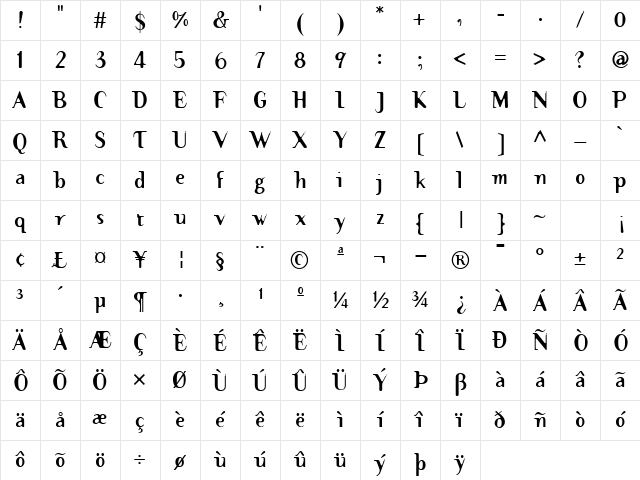
Complete TemaCantanteBold Bold glyph index. Displaying only characters natively supported by TemaCantanteBold Bold font.
TemaCantanteBold is a composed and adaptable typeface that performs quietly and consistently across a wide range of design contexts. Its bold stroke weight gives it real presence on the page.